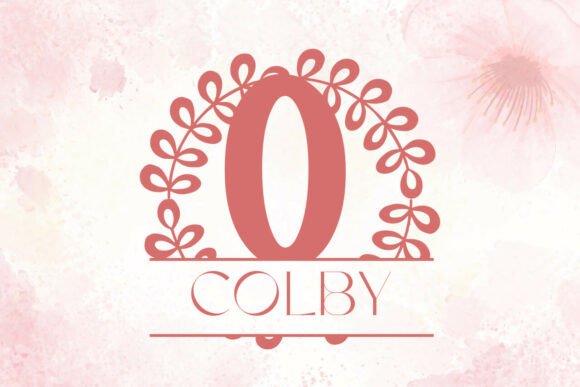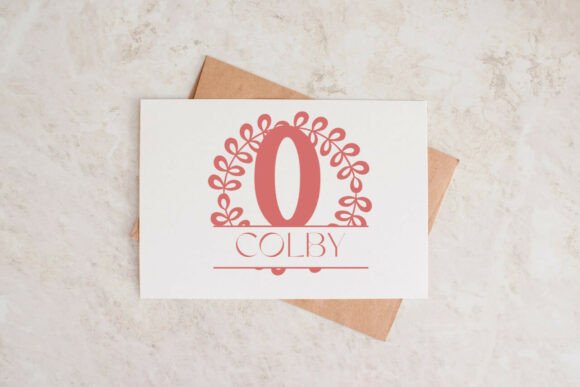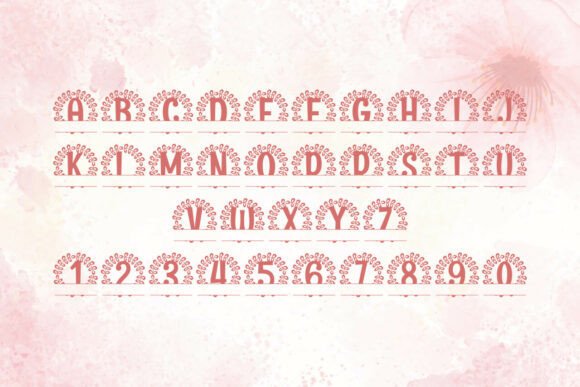
Introduction to Noblewick Split Monogram Font
As designers, we’ve all been there – staring at a blank page, waiting for that spark of creativity to strike. It’s the moment when a simple idea transforms into something truly special. For me, it was when I discovered the Noblewick Split Monogram Font. This incredible design resource has opened doors to endless possibilities, and I’m excited to share its magic with you.
With the Noblewick Split Monogram Font, you can turn any initial into a stunning, heirloom-ready emblem in seconds. The calm, confident letterforms are paired with a precise horizontal split, creating natural space for names, dates, or short words. The result is a polished design that looks perfect on tiny tags, statement wall art, or even boutique packaging.
Key Features of Noblewick Split Monogram Font
- Noble and elegant design suitable for high-end creative projects
- Features a unique split monogram design, perfect for adding a touch of sophistication
- High-quality design with crisp details, suitable for use in a variety of applications
Honest Review: Noblewick Split Monogram Font
I recently came across the Noblewick Split Monogram Font and I must say, it’s a great addition to any designer’s toolkit. The font is a high-quality design resource that offers a unique twist on traditional monogram fonts.
- ✨ Beautifully designed, with intricate details that make it perfect for creative projects.
- ⚠️ Limited character set, which may not be suitable for longer texts.
- ⚠️ May not be as versatile as other fonts, due to its unique design.
Overall, I’m really impressed with the Noblewick Split Monogram Font. It’s a great choice for designers looking to add a touch of elegance to their projects. While it may have some limitations, it’s definitely worth considering as a design resource.
Noblewick Split Monogram Font
The Noblewick Split Monogram Font is a high-quality design resource perfect for creative projects. It features a unique and stylish monogram design with a transparent background, making it easy to use in a variety of applications.
The Noblewick Split Monogram Font is perfect for a variety of projects, including business cards, invitations, and social media graphics. It’s also great for personal projects, such as photo albums and scrapbooks.